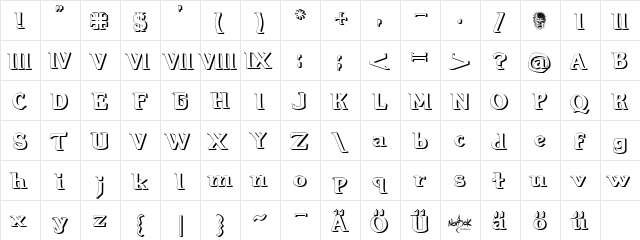
Hellraiser3 Shadow Shadow
| Designer | Thomas W.Otto |
Design Context for Hellraiser3 Shadow Typeface
Hellraiser3 Shadow is built around its visual character rather than neutral utility — its distinctive forms are designed to make an impression at display sizes.
Font Pairing: Pair with a clean neutral sans-serif for body copy to let Hellraiser3 Shadow's character lead without overwhelming the composition.
Pro Tip: Use Hellraiser3 Shadow exclusively at display sizes — it was designed to be seen, not read at length. Let a neutral companion handle body copy.